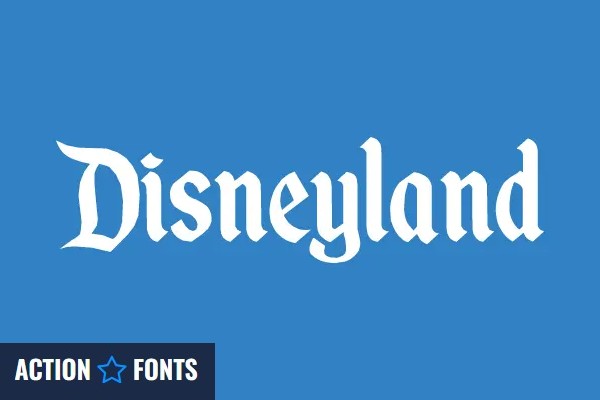
The font used in the Disneyland logo is called "Disneyland" and it was created specifically for the Disney theme park. The font is a modified version of the Futura font, with some slight adjustments to the letterforms to give it a more playful, whimsical feel. The Disneyland font is not widely available, as it was created specifically for the Disneyland brand and is not commercially licensed.
However, there is a similar free font that you can use if you want to recreate the look of the original Disneyland logo, such as �Started By a Mouse� by the renowned font author Robert Nava. You can grab yourself a free copy of this cool typeface by clicking on the download button below.